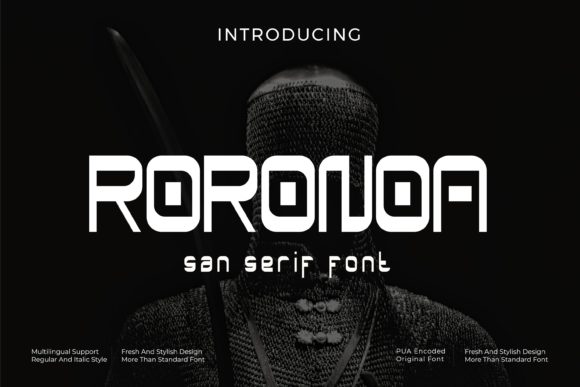
Introducing Roronoa Font: The Gateway to Distinction and Elegance
In a world saturated with monotonous fonts, Roronoa emerges as a breath of fresh air, an artistic masterpiece that transforms your designs into captivating expressions of individuality. This modern display font, meticulously crafted by mahstudios, is not just a collection of letters; it's a gateway to distinction, a key to unlocking the door of exclusivity.
With its sharp, clean lines and a touch of elegance, Roronoa transcends the boundaries of ordinary typography. Its unique design adds a layer of sophistication to any project, whether it's a web design, business card, or any creative endeavor that demands a touch of uniqueness.
Unleash the Power of Expression with Roronoa
Roronoa is more than just a font; it's an extension of your creative vision, a tool that empowers you to communicate your message with clarity, impact, and style. Its versatility extends beyond the realm of web designs and business cards, reaching into the hearts of artists, designers, and entrepreneurs who seek to make a lasting impression.
In the world of design, first impressions matter. Roronoa understands this and delivers a striking visual impact that captivates audiences at first glance. Its distinct letterforms dance across the screen or paper, leaving an unforgettable mark on the minds of your readers.
Craft a Legacy of Distinction with Roronoa
With Roronoa at your fingertips, you're not just creating designs; you're building a legacy of distinction. Your designs will stand the test of time, leaving a lasting impression on clients, customers, and colleagues. Roronoa is the ultimate choice for those who refuse to blend in, for those who dare to stand out and leave a lasting impact.
Step into the Spotlight with Roronoa
Roronoa is your secret weapon in the competitive world of design. It's the font that sets you apart, the font that makes your designs shine brighter than the rest. With Roronoa, you'll captivate audiences, leaving them in awe of your creative genius.
So, embrace the allure of Roronoa, the font that transforms ordinary designs into masterpieces of art. Let your creativity soar, let your designs speak volumes, and let Roronoa be your guiding light on this extraordinary journey.